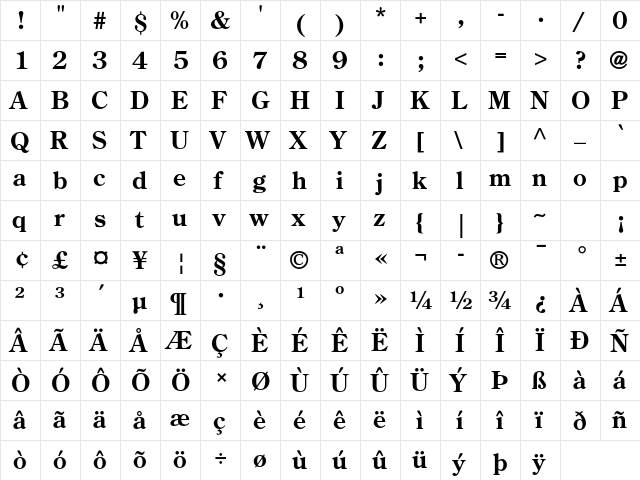
Century Old Style Std Bold
| Designer | Morris Fuller Benton |
Design Context for Century Old Style Std Typeface
Century Old Style Std offers clean, dependable letterforms without strong stylistic allegiance, making it a practical choice for designers who need flexibility. The heavy weight commands attention and anchors typographic hierarchies.